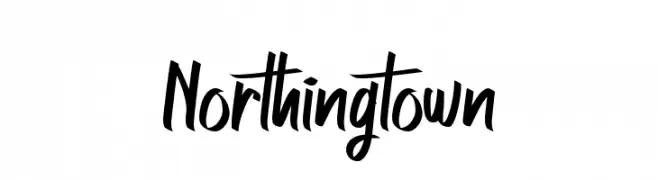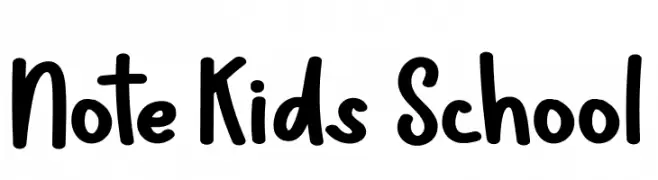
An elegant cursive script font with smooth, flowing strokes.
A playful, nose-themed font with a whimsical and humorous design.
A dynamic handwritten font with fluid, cursive letterforms.
A playful, handwritten font with bold, rounded characters and a whimsical style.
A bold, distressed serif font with a vintage, grunge aesthetic.
A modern geometric sans-serif font with clean lines and balanced proportions.
A decorative font with intricate curls and loops, offering a whimsical and artistic style.
A geometric and futuristic font with lines and dots, ideal for modern and sci-fi themes.